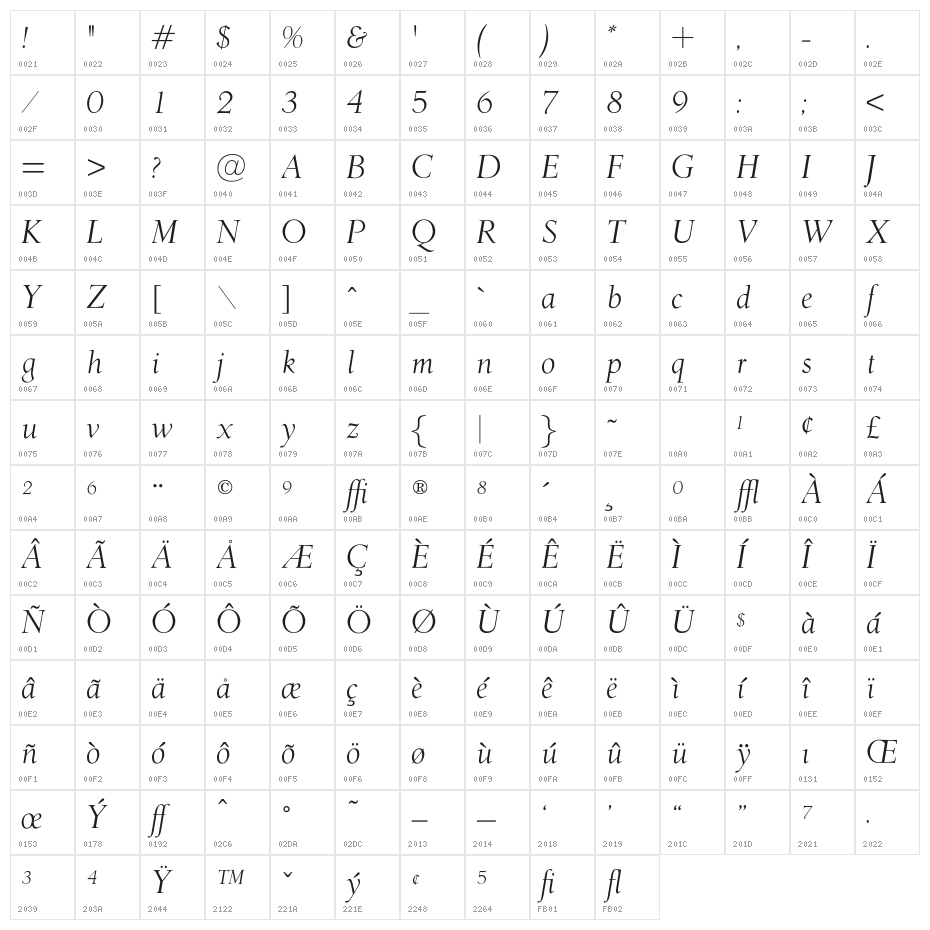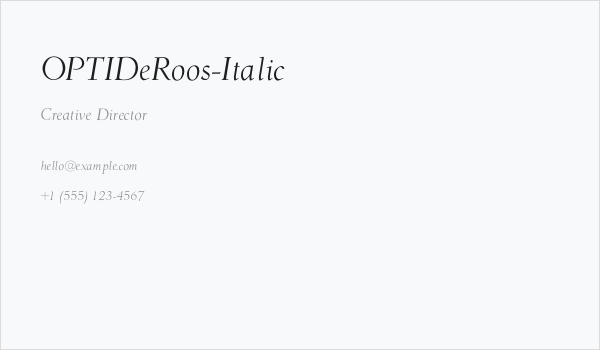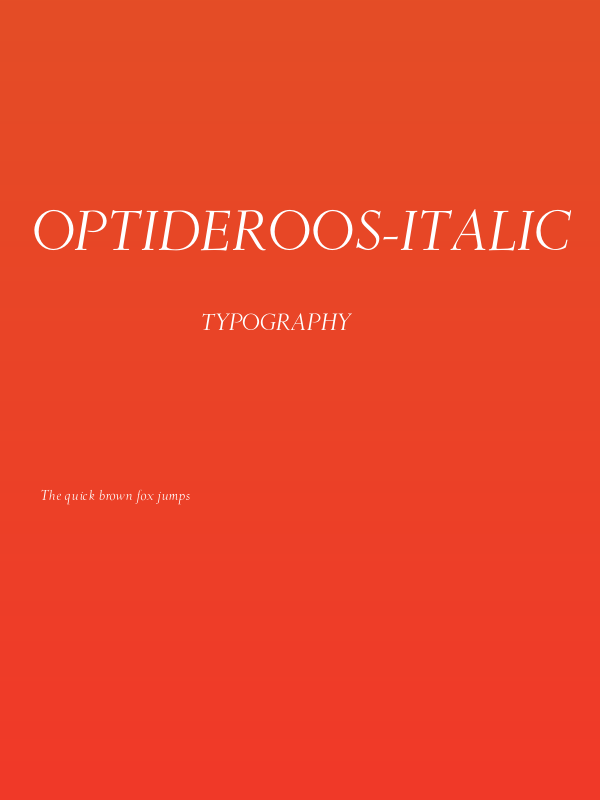
OPTIDeRoos-Italic Font
OPTIDeRoos-Italic Description
This elegant serif font features a classic italic style, characterized by its graceful curves and refined strokes. The letters are slightly slanted, giving a sense of motion and sophistication. The uppercase letters are tall and commanding, while the lowercase letters maintain a consistent flow with subtle variations in stroke width. The numerals are clear and well-proportioned, ensuring readability. Special characters are designed with the same attention to detail, making them harmonious with the rest of the typeface. This font exudes a timeless quality, suitable for a variety of formal and creative applications.
| Proposed Projects | Ideal for wedding invitations, formal documents, luxury branding, and editorial design. |